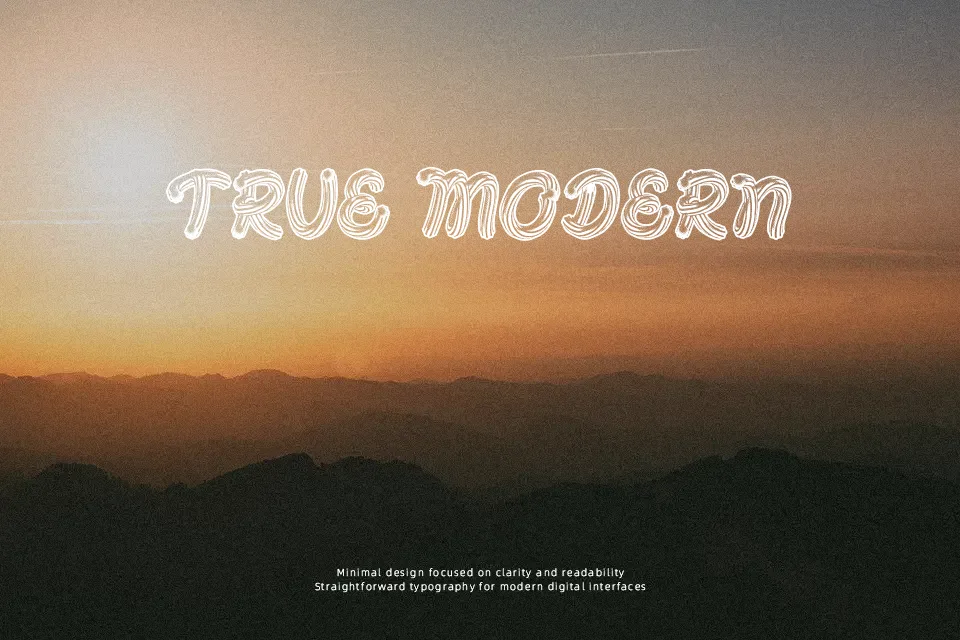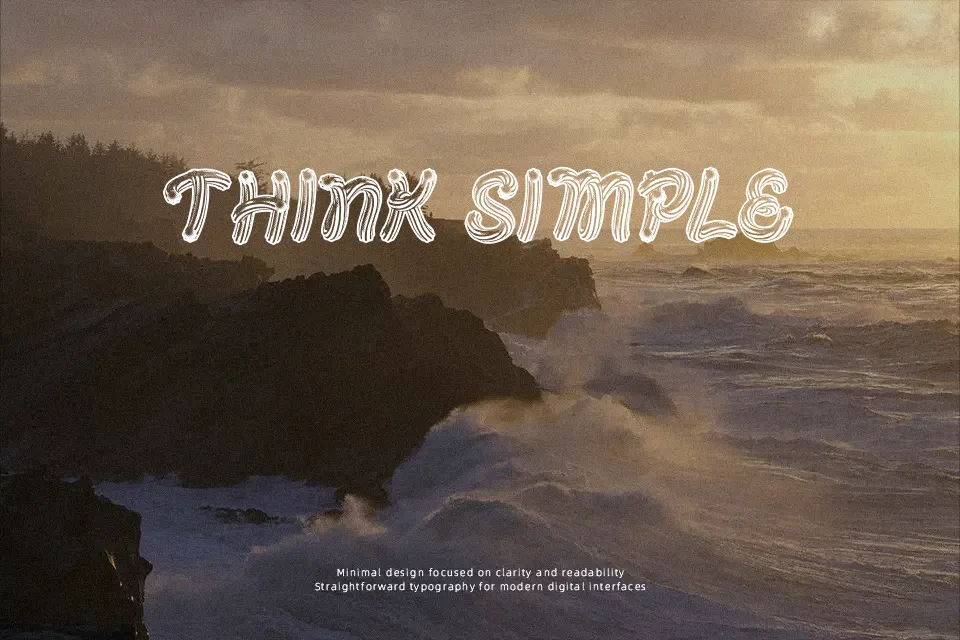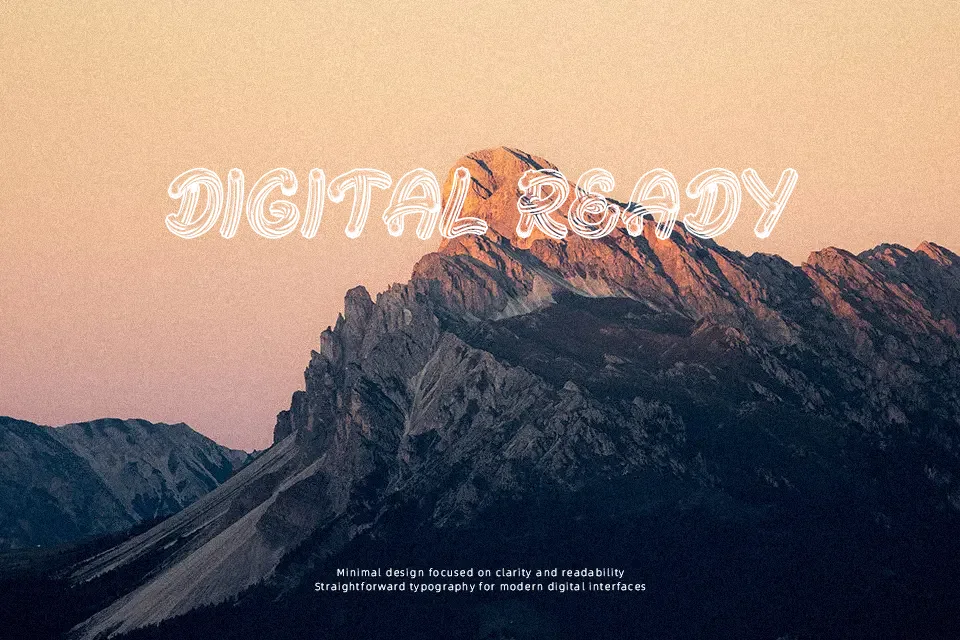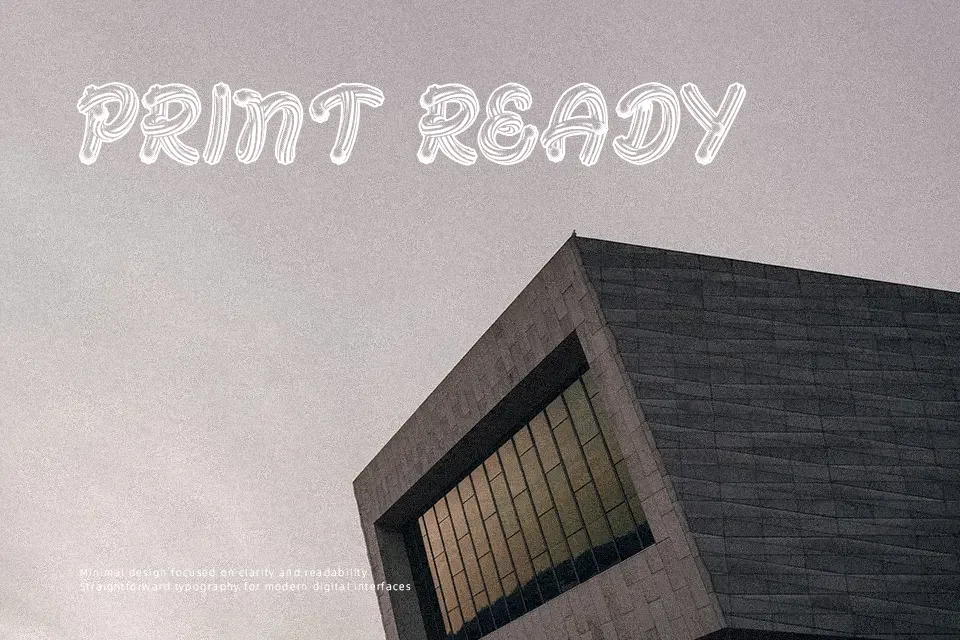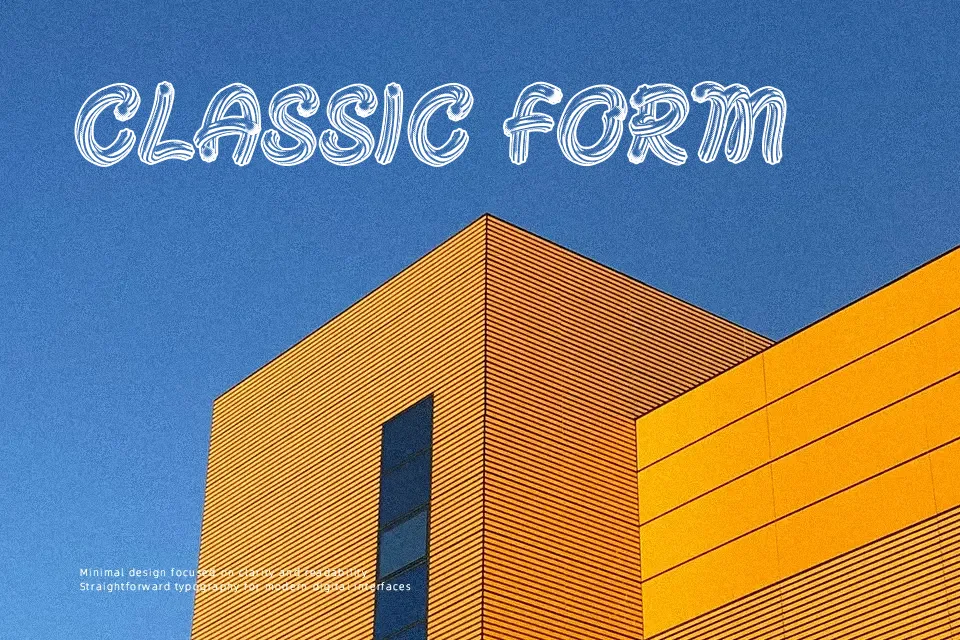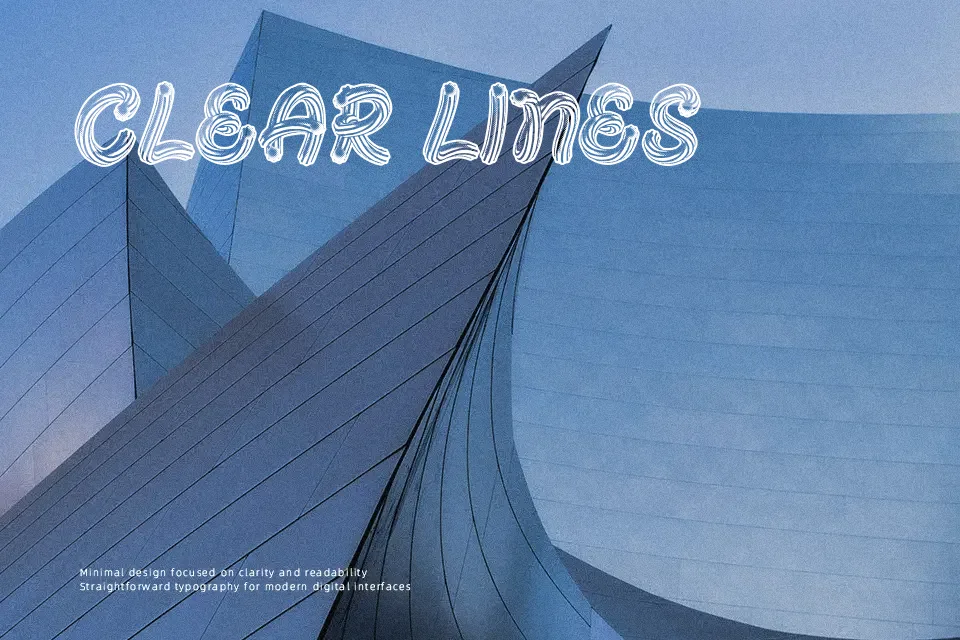
Candyday Font
Candyday Font features bulbous character geometry with prominent multi-layered borders and rhythmic candy-cane diagonal patterns across each glyph. Heavy stroke weights produce wide proportions and compact letter spacing, establishing substantial visual presence on printed promotional materials and bakery signage. The decorative interior fills deliver distinctive personality at large scale, though these intricate linear details quickly blend together at smaller point sizes. Dense counters and exaggerated silhouettes reduce comfort during continuous reading, making the design less effective for multi-line body copy. For seasonal merchandise and oversized party headers, the typeface offers immediate thematic clarity and strong shelf recognition.
Best For: confectionery packaging,seasonal event posters,bakery storefront signage,children birthday party invitations
Not Ideal For: continuous body text,mobile interface labels,technical documentation,dense editorial paragraphs
Perfect for headline, holiday, and kids, with a bold and cartoon style.